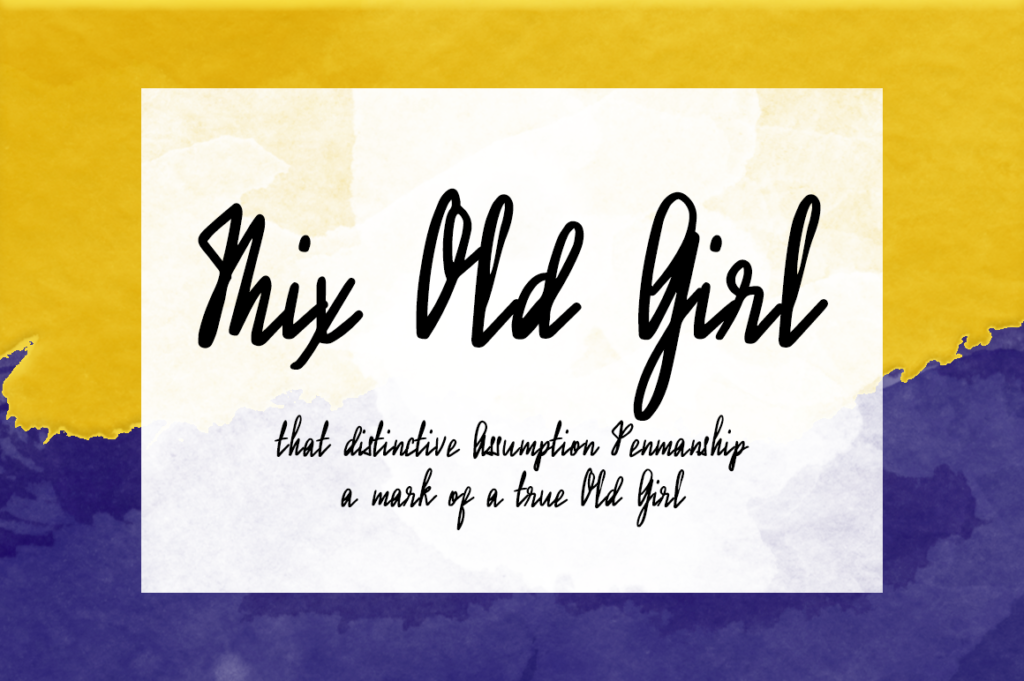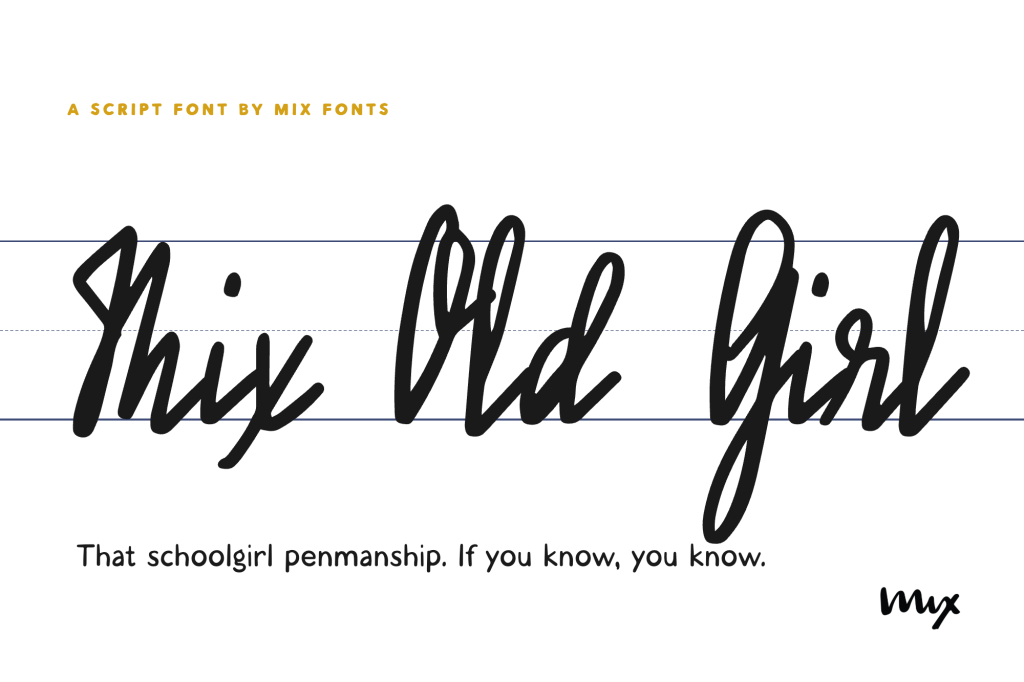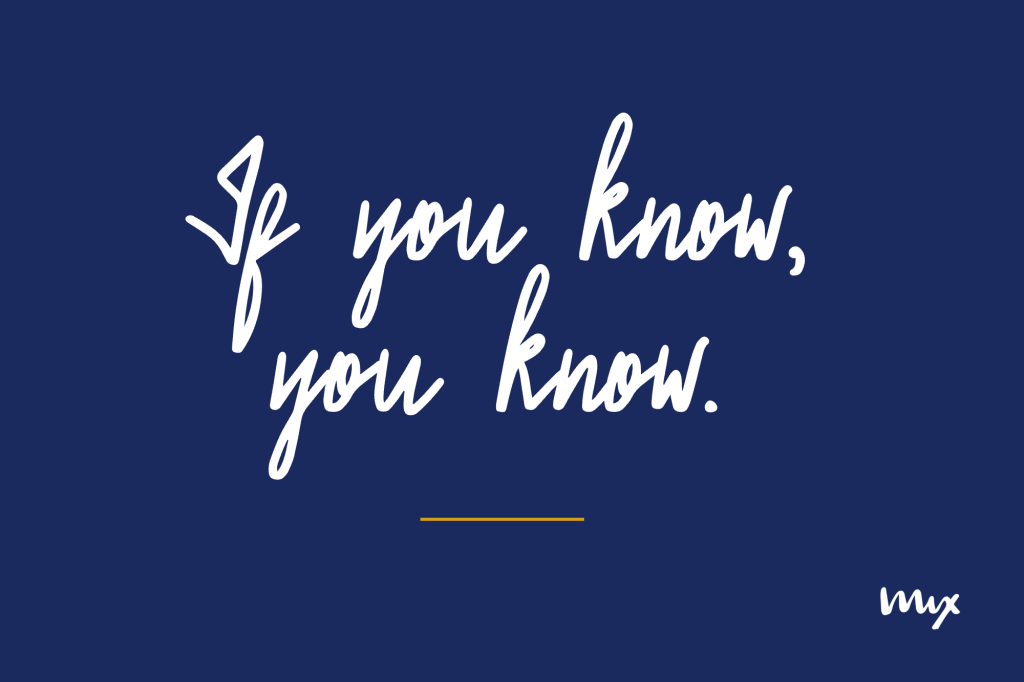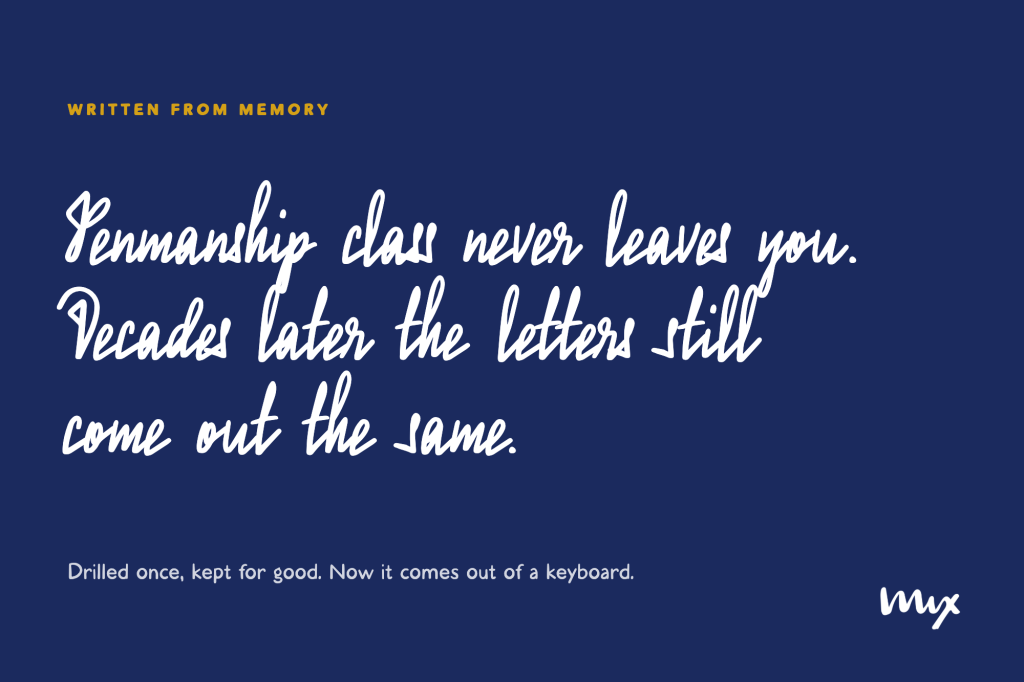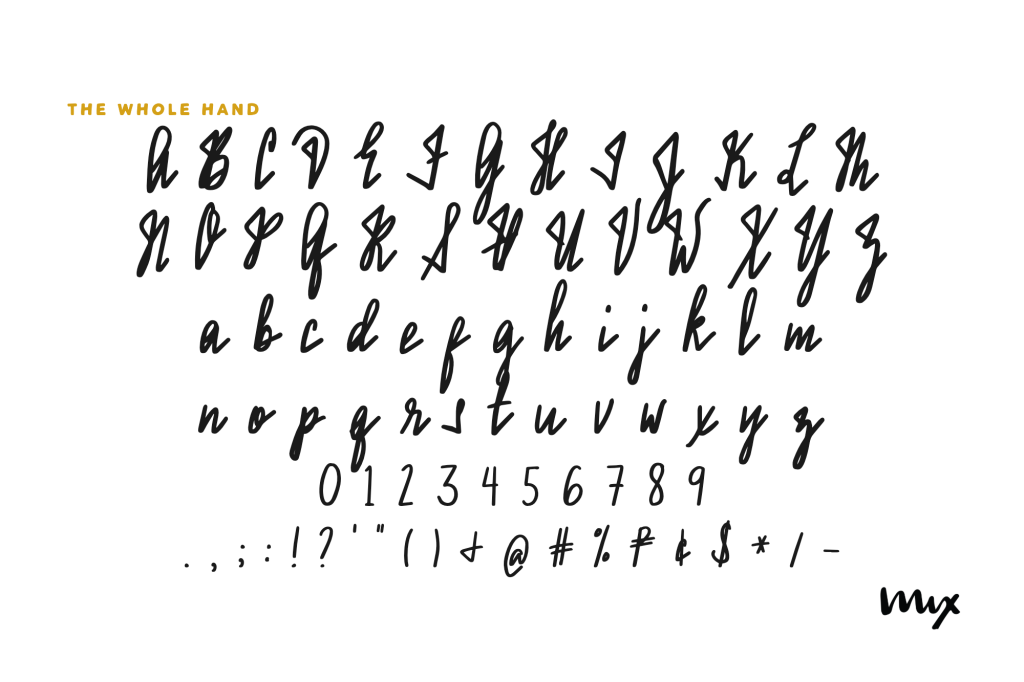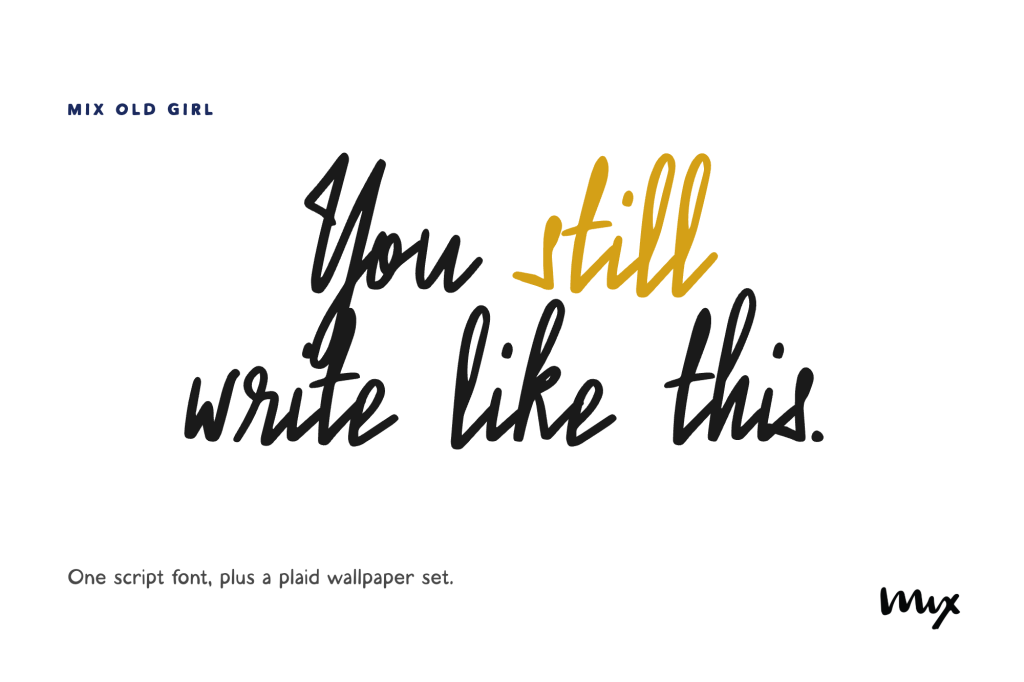
Mix Old Girl
My old school hand, kept exactly as it was.
Mix Old Girl is that handwriting. If you know, you know.
The looping schoolgirl penmanship drilled into generations of old girls, written from memory by one of them. The assumption is simple: penmanship class never leaves you. Decades later the letters still come out the same, and now they come out of your keyboard.
Made for: reunion invitations, batch shirts, alumnae projects, nostalgic gifts, and anything that should look like it was written neatly, under supervision, in cursive.
Mix Old Girl comes with the following characters:
• ABCDEFGHIJKLMNOPQRSTUVWXYZ
• abcdefghijklmnopqrstuvwxyz
• 0123456789 !@$#%^&*()
• `~β€’+=[]:;’”,.|/?{}<>β€œβ€β€˜β€™-–_«»°₱’